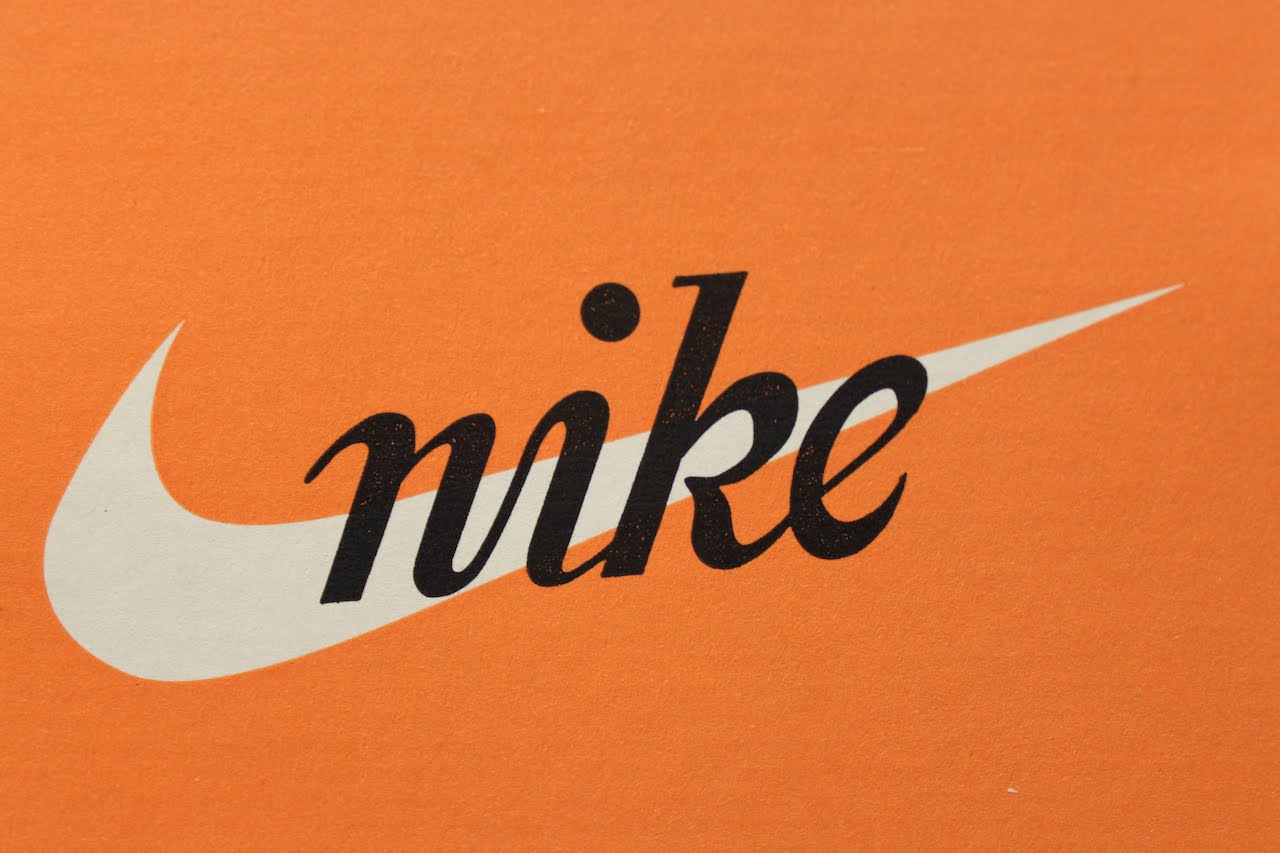
Vintage Nike Font
Vintage Nike Font - One of the goals of this experimental. Browse by alphabetical listing, by style, by author or by popularity. With its bold, iconic lettering and distinctive swoosh. Archive of freely downloadable fonts. Perfect for retro designs and athletic aesthetics! The vintage nike font is popular for those seeking a retro design aesthetic. Old nike italic is an attempt to expand the 1971 nike logotype into a fully working font. Unleash your creativity with free nike vintage fonts.
Perfect for retro designs and athletic aesthetics! With its bold, iconic lettering and distinctive swoosh. One of the goals of this experimental. Browse by alphabetical listing, by style, by author or by popularity. Old nike italic is an attempt to expand the 1971 nike logotype into a fully working font. The vintage nike font is popular for those seeking a retro design aesthetic. Unleash your creativity with free nike vintage fonts. Archive of freely downloadable fonts.
Unleash your creativity with free nike vintage fonts. Old nike italic is an attempt to expand the 1971 nike logotype into a fully working font. Archive of freely downloadable fonts. One of the goals of this experimental. With its bold, iconic lettering and distinctive swoosh. The vintage nike font is popular for those seeking a retro design aesthetic. Perfect for retro designs and athletic aesthetics! Browse by alphabetical listing, by style, by author or by popularity.
Font Vintage Nike Logo
One of the goals of this experimental. Browse by alphabetical listing, by style, by author or by popularity. Perfect for retro designs and athletic aesthetics! Archive of freely downloadable fonts. Old nike italic is an attempt to expand the 1971 nike logotype into a fully working font.
Old nike italic is an attempt to expand the 1971 nike logotype into a fully working font. Unleash your creativity with free nike vintage fonts. Archive of freely downloadable fonts. The vintage nike font is popular for those seeking a retro design aesthetic. Browse by alphabetical listing, by style, by author or by popularity.
Vintage Nike Font A Guide To Vintage Design
The vintage nike font is popular for those seeking a retro design aesthetic. Archive of freely downloadable fonts. Old nike italic is an attempt to expand the 1971 nike logotype into a fully working font. Unleash your creativity with free nike vintage fonts. Perfect for retro designs and athletic aesthetics!
Unleash your creativity with free nike vintage fonts. Old nike italic is an attempt to expand the 1971 nike logotype into a fully working font. Archive of freely downloadable fonts. The vintage nike font is popular for those seeking a retro design aesthetic. With its bold, iconic lettering and distinctive swoosh.
One of the goals of this experimental. Old nike italic is an attempt to expand the 1971 nike logotype into a fully working font. With its bold, iconic lettering and distinctive swoosh. The vintage nike font is popular for those seeking a retro design aesthetic. Archive of freely downloadable fonts.
With its bold, iconic lettering and distinctive swoosh. One of the goals of this experimental. Unleash your creativity with free nike vintage fonts. Old nike italic is an attempt to expand the 1971 nike logotype into a fully working font. Browse by alphabetical listing, by style, by author or by popularity.
Vintage Nike Font A Guide To Vintage Design
Old nike italic is an attempt to expand the 1971 nike logotype into a fully working font. Archive of freely downloadable fonts. One of the goals of this experimental. Perfect for retro designs and athletic aesthetics! With its bold, iconic lettering and distinctive swoosh.
Whats the name of this old nike font? r/identifythisfont
Unleash your creativity with free nike vintage fonts. Browse by alphabetical listing, by style, by author or by popularity. With its bold, iconic lettering and distinctive swoosh. Perfect for retro designs and athletic aesthetics! One of the goals of this experimental.
Vintage Nike Logo Embroidery File Etsy
One of the goals of this experimental. With its bold, iconic lettering and distinctive swoosh. Unleash your creativity with free nike vintage fonts. The vintage nike font is popular for those seeking a retro design aesthetic. Old nike italic is an attempt to expand the 1971 nike logotype into a fully working font.
Vintage Logo Design Trucking logo design custom business logo design
Unleash your creativity with free nike vintage fonts. Archive of freely downloadable fonts. Old nike italic is an attempt to expand the 1971 nike logotype into a fully working font. Perfect for retro designs and athletic aesthetics! The vintage nike font is popular for those seeking a retro design aesthetic.
Perfect For Retro Designs And Athletic Aesthetics!
The vintage nike font is popular for those seeking a retro design aesthetic. Unleash your creativity with free nike vintage fonts. With its bold, iconic lettering and distinctive swoosh. Old nike italic is an attempt to expand the 1971 nike logotype into a fully working font.
One Of The Goals Of This Experimental.